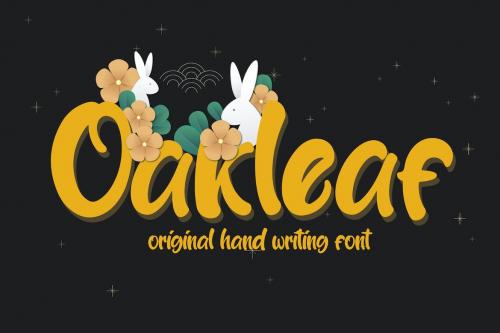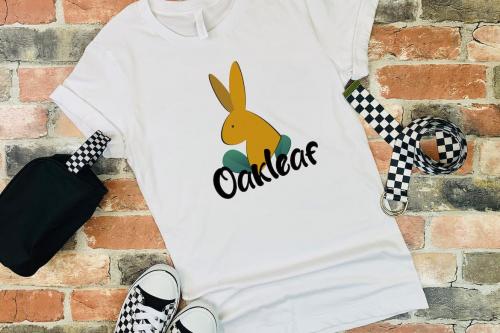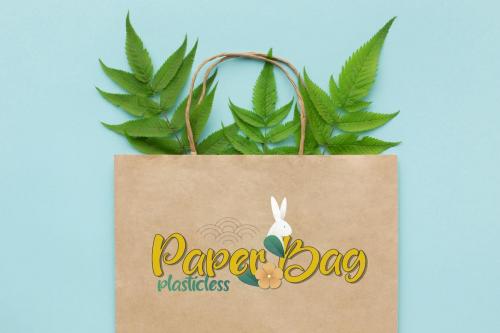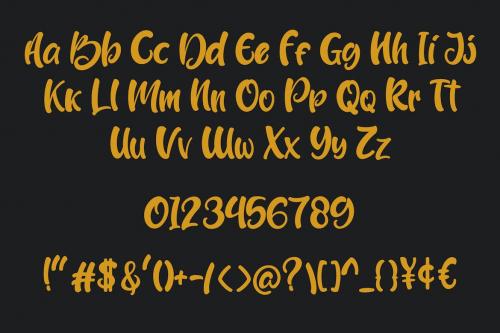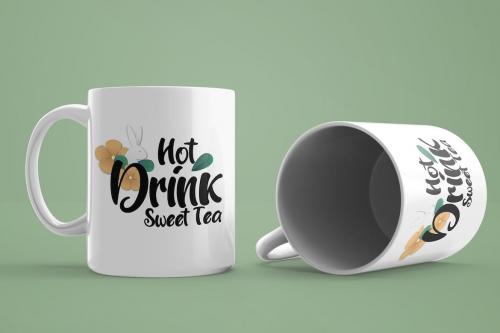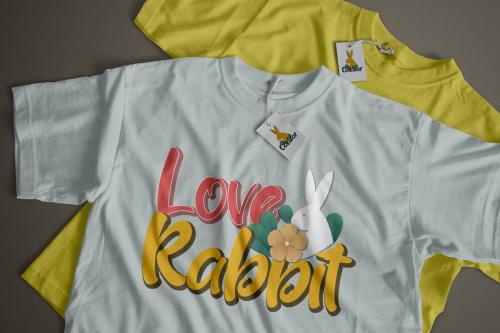
**Oakleaf Font**
This pair was inspired by the retro poster design that i saw on some coffee shop, It was crafted by hand specially to add natural handmade feeling in its brand identity than i make it clean with pentool.